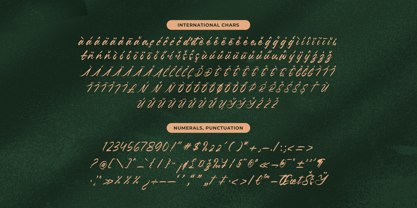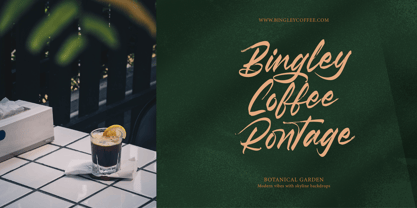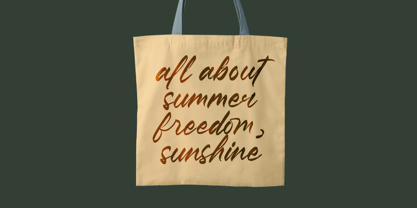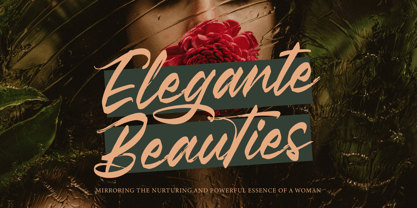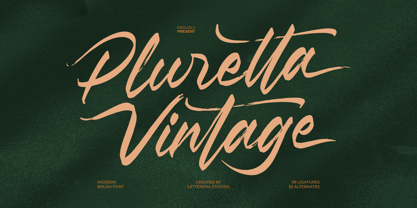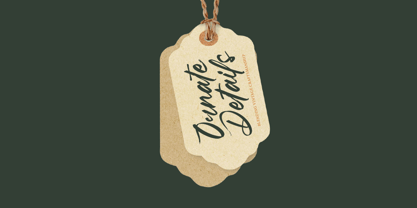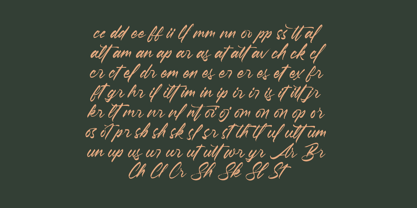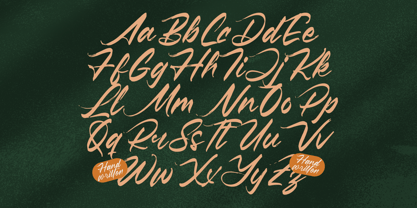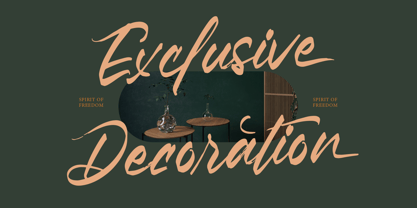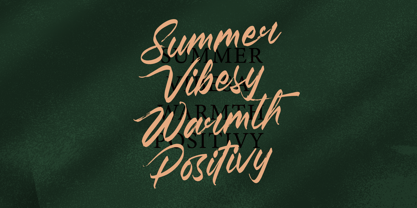
Pluretta Vintage
The Pluretta Vintage Font Family was designed by Heru Utama Putra and published by Letterena Studios. Pluretta Vintage contains 2 styles and family package options.
Pluretta Vintage – Modern Brush Font , from Letterena, is a Luxury Script font, suitable for any projects such as: logos, branding projects, homeware designs, product packaging, mugs, quotes, posters, shopping bags, t-shirts, book covers, name card, invitation cards, greeting cards, label, photography, watermark, special events, and all your other luxury and beautiful projects that need a Luxury Script taste.